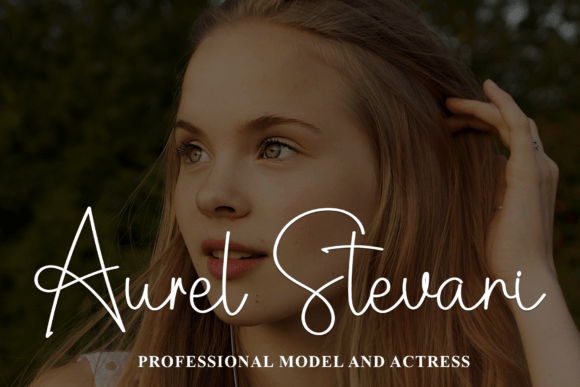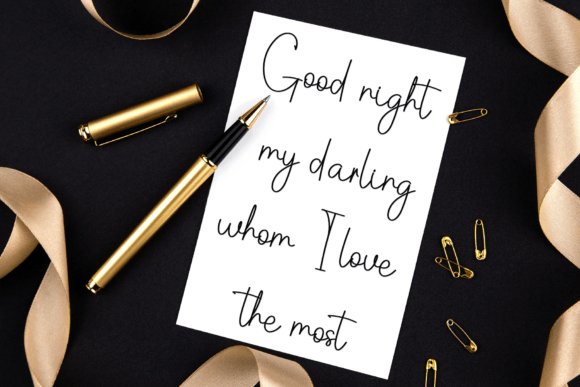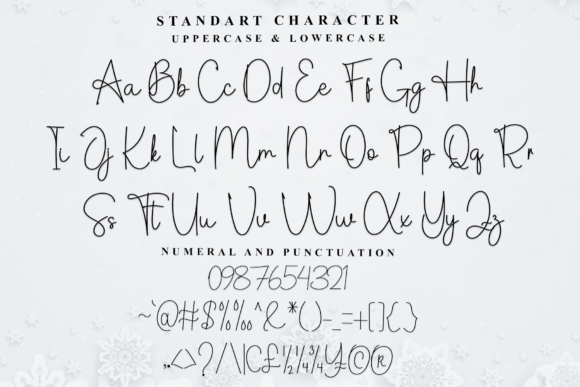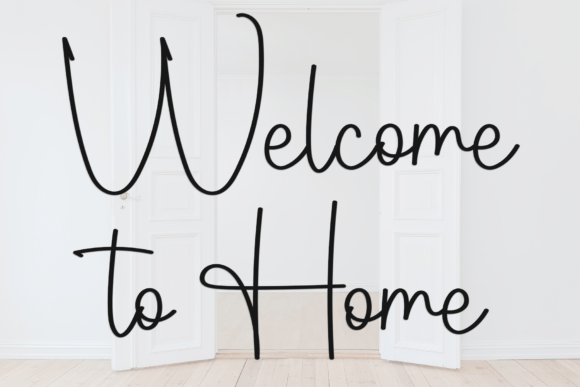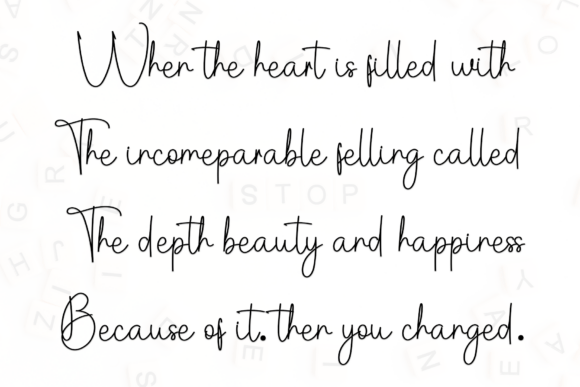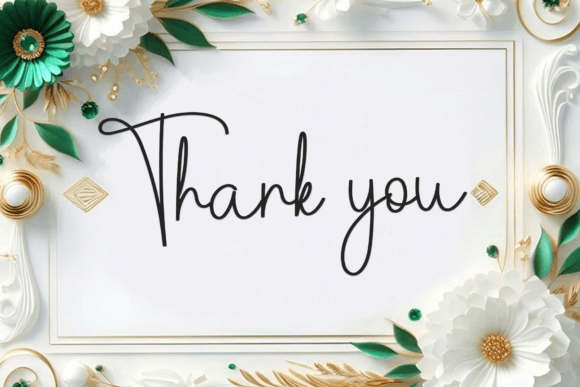
Ashley Christmas Font: Elevate Your Designs with Elegance and Sophistication
Are you a designer or crafter looking for a font that exudes elegance and sophistication? Look no further than the Ashley Christmas Font. This stylish and incredibly elegant script font is perfect for adding a handwritten touch to your designs, making it ideal for wedding invitations, thank you cards, quotes, greeting cards, logos, business cards, and more.
What Makes Ashley Christmas Font So Special?
The Ashley Christmas Font is a standout in the world of typography, boasting a range of features that make it a must-have for designers and crafters. Here are just a few reasons why:
- Elegant Script Style: The Ashley Christmas Font features a beautiful, flowing script style that adds a touch of sophistication to any design.
- Versatility: The Ashley Christmas Font is incredibly versatile, making it perfect for a wide range of design projects, from wedding invitations to business cards.
Perfect for Wedding and Party Designs
If you’re a designer or crafter who specializes in wedding or party designs, the Ashley Christmas Font is a must-have. Its elegant script style and sophisticated feel make it perfect for:
- Wedding Invitations: Create beautiful, bespoke wedding invitations that set the tone for the big day.
- Thank You Cards: Add a personal touch to your thank you cards with this stunning script font.
- Party Decor: Use the Ashley Christmas Font to create stunning party decor, including banners, garlands, and more.
Adding a Handwritten Touch to Your Designs
One of the standout features of the Ashley Christmas Font is its ability to add a handwritten touch to your designs. This is perfect for:
- Quotes and Sayings: Add a personal touch to your quotes and sayings with this beautiful script font.
- Greeting Cards: Create stunning greeting cards that are sure to impress with the Ashley Christmas Font.
- Logos and Branding: Use this font to create elegant logos and branding materials that set your business apart.
Why Designers and Crafters Love the Ashley Christmas Font
So why do designers and crafters love the Ashley Christmas Font? Here are just a few reasons:
In conclusion, the Ashley Christmas Font is a must-have for designers and crafters who want to add a touch of elegance and sophistication to their designs. With its beautiful script style, PUA encoding, and versatility, this font is perfect for a wide range of design projects. Whether you’re creating wedding invitations, greeting cards, or logos, the Ashley Christmas Font is sure to impress.